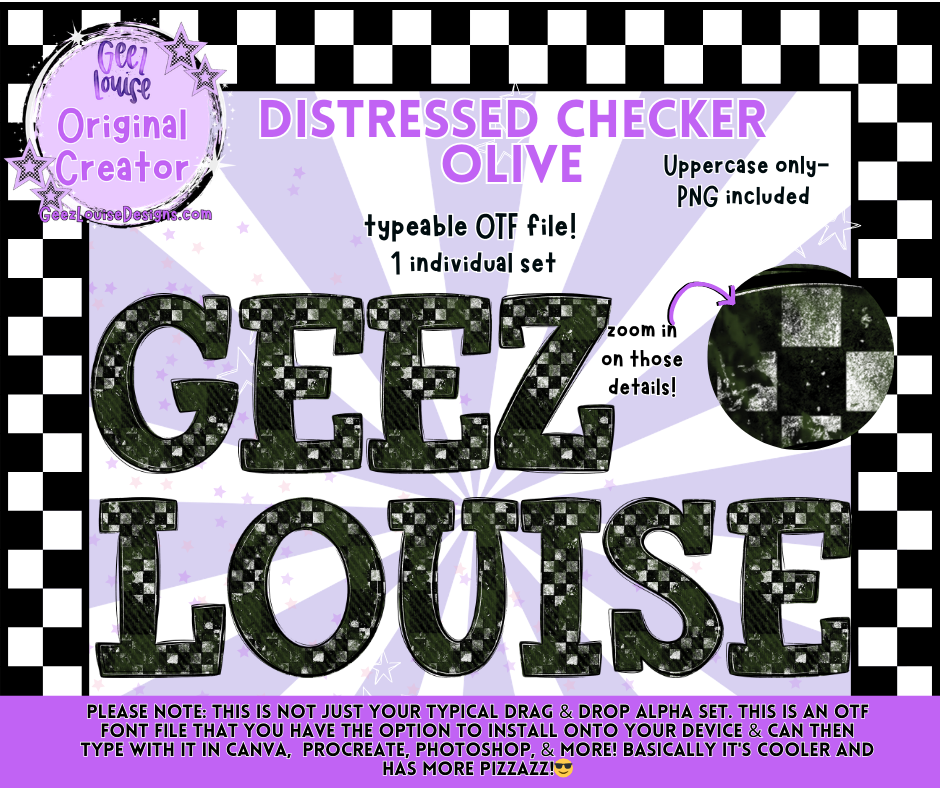
DISTRESSED CHECKER OLIVE — Typeable OTF Alpha Font + PNGs
Earthy, trendy, and boutique‑approved — Distressed Checker Olive is the perfect neutral for creators who love subtle grunge with a modern twist. This typeable OTF font brings instant style to apparel, branding, and digital goods.
• Uppercase A–Z
• Distressed olive checker textures
• Sharp, print‑ready detailing